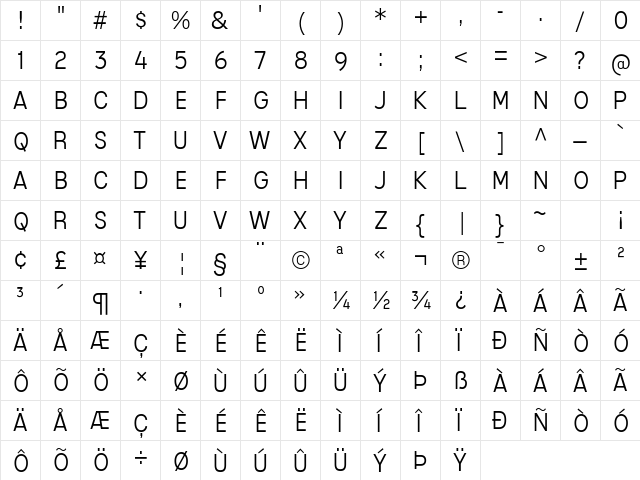
Mixolydian Titling Light
Design Context for Mixolydian Titling Typeface
Mixolydian Titling is a composed and adaptable typeface that performs quietly and consistently across a wide range of design contexts. Its slender proportions lend an understated elegance to any composition.